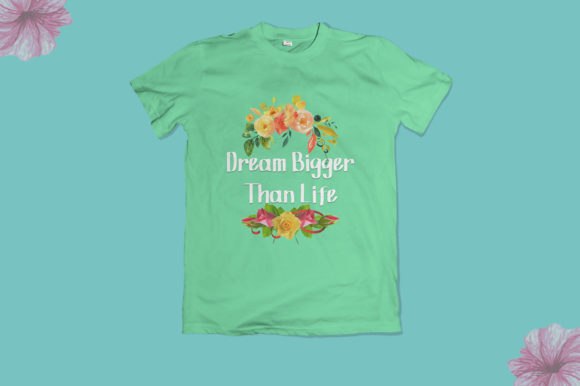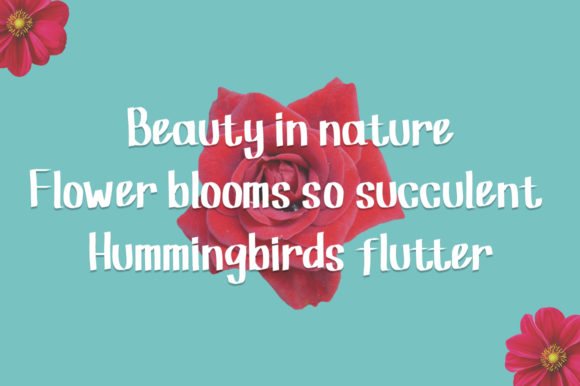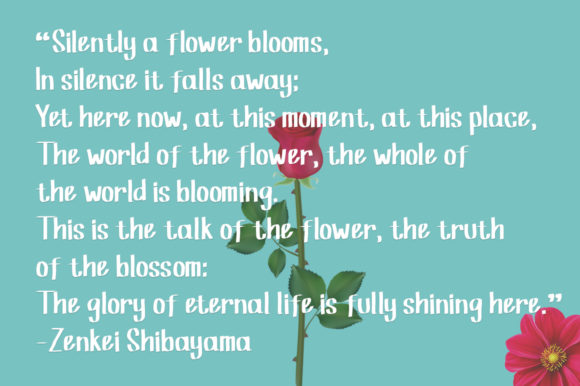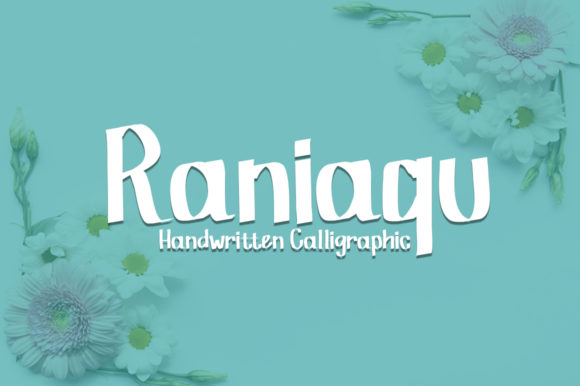
Raniaqu Font
The Raniaqu is a modern handwritten font. It was inspired by calligraphy and it is perfect for adding a natural touch to your designs.
It is perfect for logo designs, branding, posters, cover / book titles, art quotes, clothing designs, product packaging, labels, special events or anything that requires a handwritten feel.